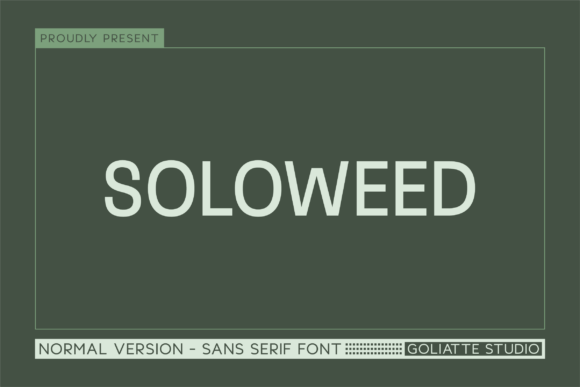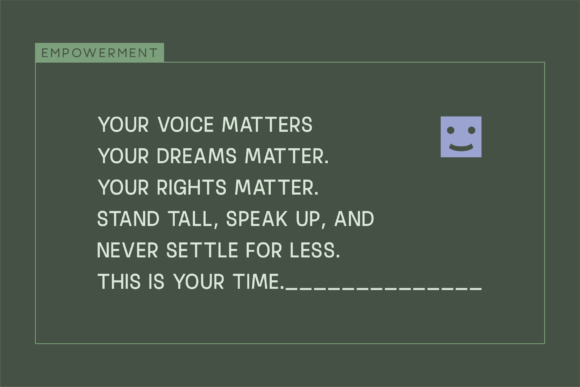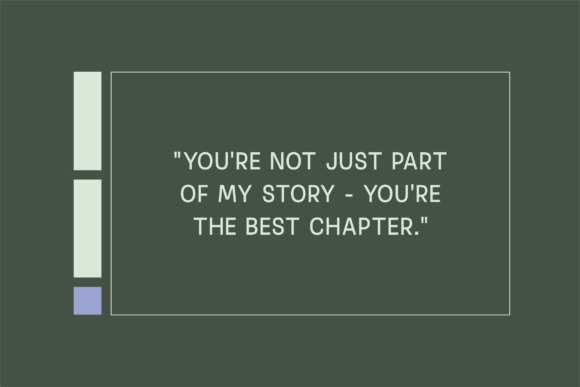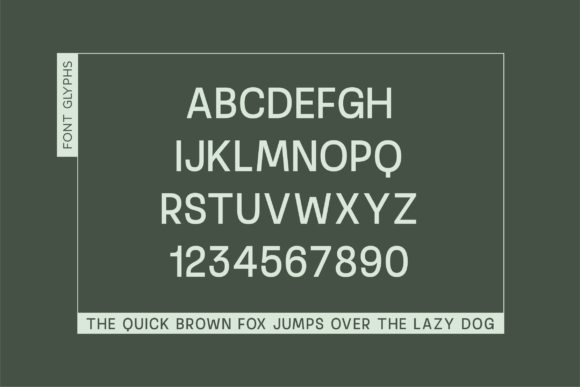
Soloweed Font: Modern Sans Serif for Bold Logo Design & Branding
About the Soloweed Font
Crafted with precision, the Soloweed Font is ready to bring your ideas to life. Introducing Soloweed – A Modern Sans Serif Typeface
Soloweed is a bold, all-caps sans serif font designed for the modern designer. With its clean lines and minimalist aesthetic, this typeface exudes strength and authority. It is perfect for projects that require a sense of professionalism and impact. Whether you’re designing a logo, website, or print material, Soloweed makes a statement with its sharp, crisp edges.
The strong, geometric structure of Soloweed ensures versatility, from digital interfaces to high-end branding. The all-caps design emphasizes clarity and readability, making it ideal for headlines, posters, and anywhere you need your message to stand out.
Features:
All-caps design for maximum impact
Modern, minimalist style with a focus on readability
Bold, clean lines for a confident and professional look
Ideal for branding, logos, packaging, and digital design
Perfect for both large-scale headlines and smaller text blocks
Soloweed is perfect for brands, agencies, and designers looking to create a modern, authoritative identity. It’s especially suitable for tech companies, corporate branding, and luxury design projects where style and readability are paramount.
Stand out with Soloweed – a typeface built to make an impression.
Soloweed Font Usage Examples
Soloweed Font Example